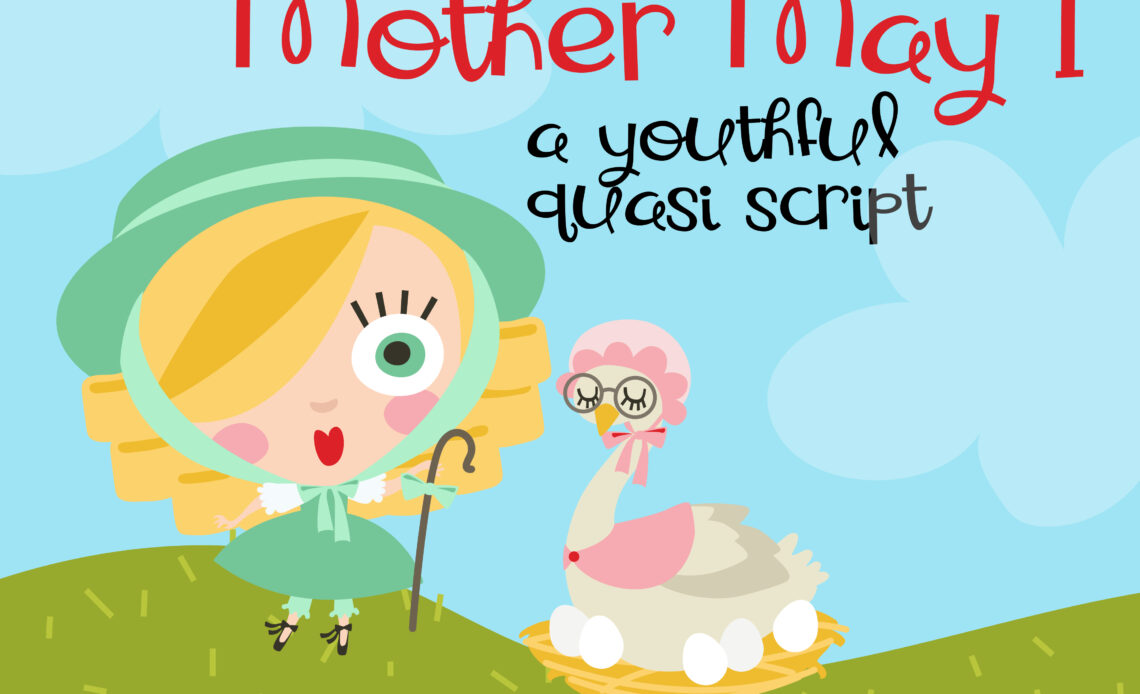
Mother May I Font
Welcome to the enchanting world of Mother May I Font, a script font family that will ignite your creativity and make your designs come alive. Experience the beauty of a font that seamlessly blends the elegance of script with the playfulness of print, creating a quasi-script that is both captivating and versatile.
Feel the energy and vibrancy of Mother May I Font. Its youthful spirit will infuse your designs with a sense of fun and lightheartedness, making them stand out from the crowd. With its relaxed feel, Mother May I Font is perfect for adding a touch of whimsy and charm to your projects.
Unlock your imagination and let Mother May I Font take you on a journey of creativity. Its unique style will inspire you to create designs that are both visually appealing and emotionally engaging. Whether you're a seasoned designer or just starting out, Mother May I Font is the perfect tool to bring your ideas to life.